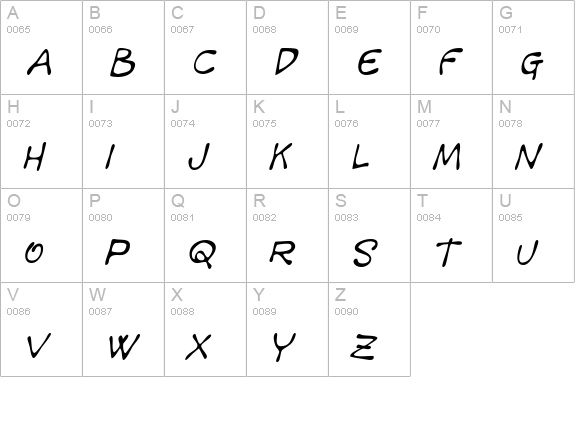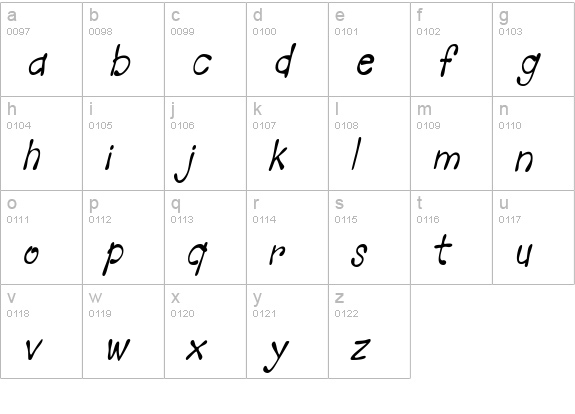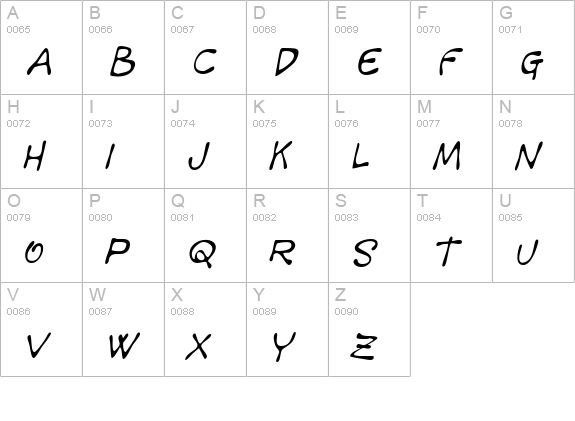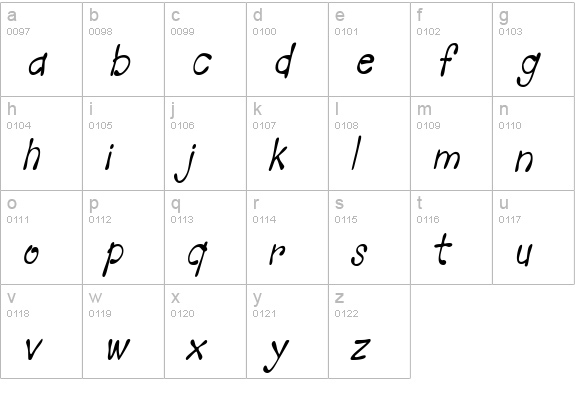
Mandingo BTN Cond Oblique Font Details
Mandingo BTN Cond Oblique is a distinctive, condensed-width, italic variant in the Mandingo typeface family \xE2\x80\x94 well suited to design and typography projects.
Mandingo BTN Cond Oblique font is a unique and stylish typeface that exudes confidence and sophistication. With its sleek and slanted design, this font is perfect for adding a touch of elegance to any project or design. This font's condensed style allows for maximum impact, making it ideal for headlines, titles, and logo designs. Its oblique slant adds a dynamic and contemporary feel to any text, making it stand out from the crowd. The distinctive curves and sharp angles of Mandingo BTN Cond Oblique font give it a modern and edgy look, while still maintaining a sense of professionalism and readability. Its bold and strong presence ensures that your message will be delivered with impact. One of the best things about Mandingo BTN Cond Oblique font is that it is freely available to download at FontsMarket.com. This means that you can easily access and use this font for all your creative projects without any cost. Whether you're a professional designer or just someone looking to add a touch of style to their personal projects, this font is a fantastic choice. So, why not give Mandingo BTN Cond Oblique font a try? Download it for free at FontsMarket.com and let your creativity soar. With its unique and eye-catching design, this font is sure to make a lasting impression.